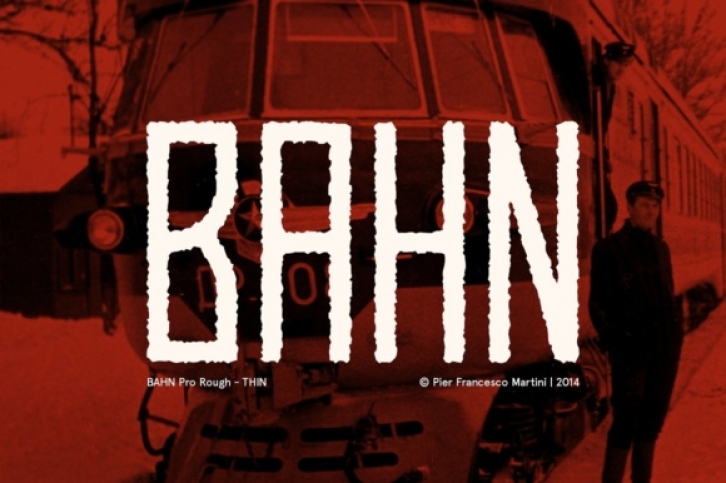
Bahn Thin is a Soviet inspired version of the original Bahn typeface; this display font has rugged edges and has a rigorous severity that makes it suitable for displays in more masculine or intensely themed projects.